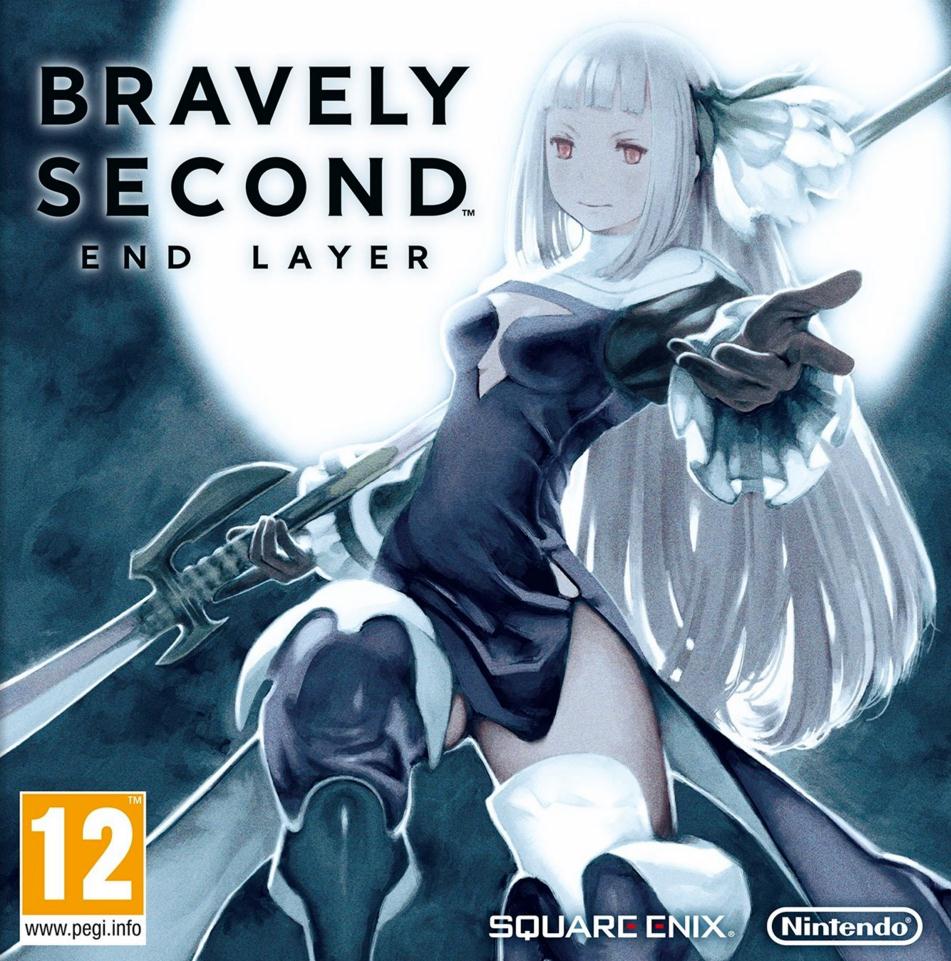
Bravely Second Font
Fonts in UseBravely Second: End Layer is a role-playing video game developed by Silicon Studio and published by Square Enix. It was released for the Nintendo 3DS console in 2015 as a sequel to Bravely Default, featuring turn-based combat, job classes, and a new story set in the same universe.
The font used for the Bravely Second game logo is Matrix II Regular designed by Zuzana Licko. Whereas, The Bravely Default game logo appears to have been created using Gotham Bold as the base font, with slight serif additions to the ends of the letters. Similar fonts with a comparable appearance include Copperplate Bold Condensed, and Sweet Sans Bold by Mark van Bronkhorst.